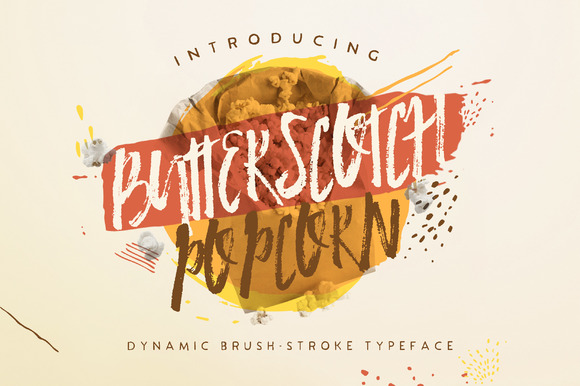
Unleash the magic of typography with Butterscotch Popcorn Font, the crown jewel in Blue Robin Design Shop's font collection. Born from the creative spark of KlapauciusCo, this script font captivates with its enchanting brush-stroke charm.
Immerse your designs in a world of whimsy and wonder with Butterscotch Popcorn Font's playful curves and dynamic strokes. Each letter dances across the page, evoking memories of carefree summer days and the sweet, comforting aroma of freshly popped popcorn.
Crafted meticulously by hand, this font embodies the essence of organic beauty. Its imperfect edges and fluid lines add a touch of authenticity and warmth to any project. Whether you're creating logos, invitations, social media graphics, or website designs, Butterscotch Popcorn Font will infuse your work with personality and charm.
Transport your audience to a bygone era with Butterscotch Popcorn Font's vintage flair. Imagine the thrill of penning love letters, crafting heartfelt cards, or designing elegant invitations adorned with this font's timeless beauty. Its nostalgic aura evokes feelings of nostalgia, making it the perfect choice for projects that seek to evoke a sense of history and tradition.
Step into the world of boundless creativity with Butterscotch Popcorn Font. Its versatility knows no bounds, adapting seamlessly to a wide range of design styles. Whether you prefer the classic elegance of serif fonts or the modern simplicity of sans-serif, this brush-stroke script font will blend effortlessly with your vision.
Embrace the magic of Butterscotch Popcorn Font and elevate your designs to new heights. Unlock the power of storytelling and captivate your audience with every stroke. This font is more than just a collection of characters; it's an invitation to embark on a creative journey where imagination reigns supreme.